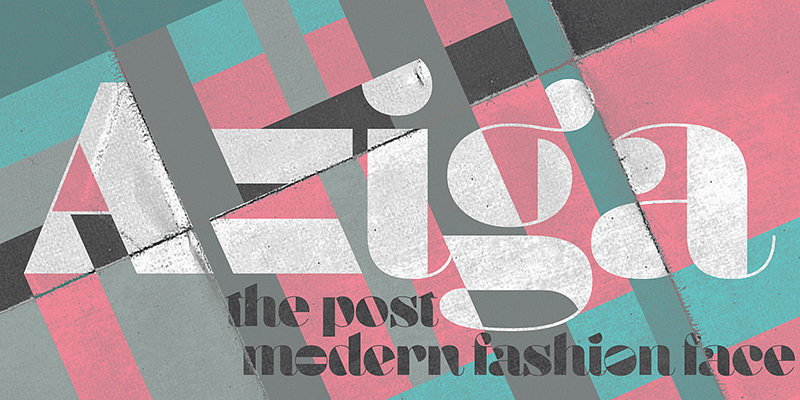
Aziga Font Free Download is a sleek, high-contrast serif typeface that exudes elegance and modern sophistication. With its sharp, sculpted serifs, graceful curves, and editorial flair, Aziga is perfect for fashion branding, luxury packaging, magazine headlines, and upscale invitations.
Designed to make a statement, Aziga Font balances beauty with functionality—its tall letterforms and stylish details ensure high legibility while adding a refined personality to any design. It's especially effective in display sizes, where its delicate contrasts and bold style can shine.